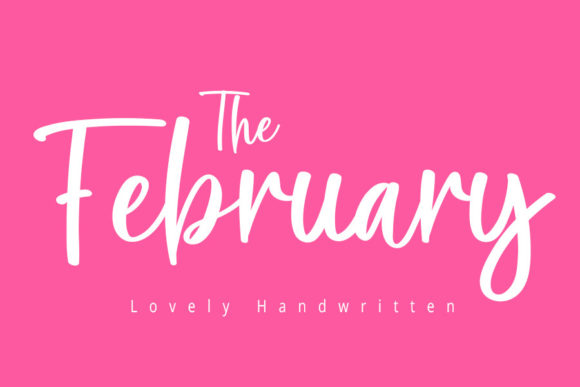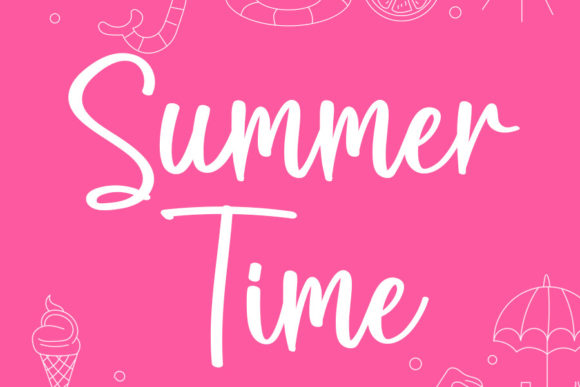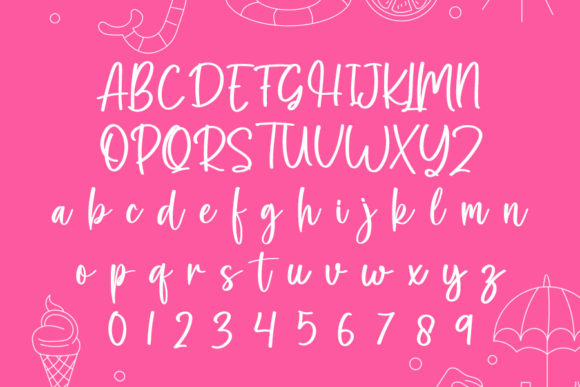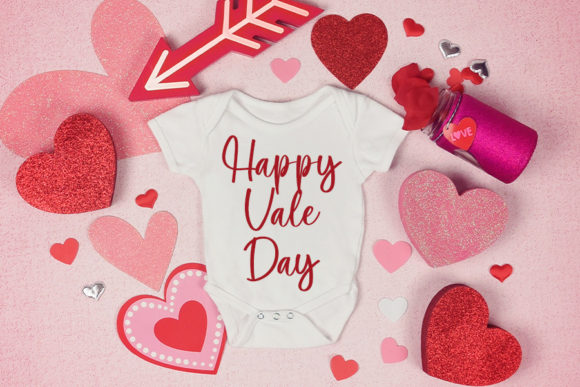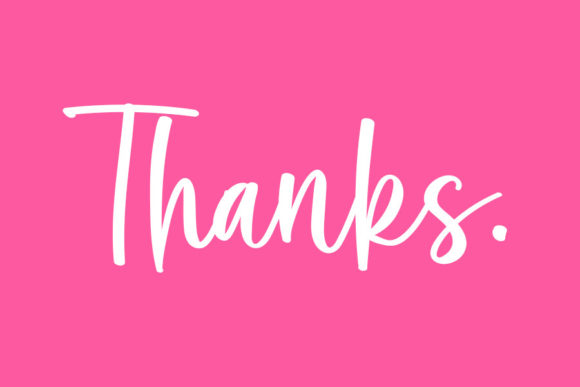
The February Font
About The February Font
The February is a sweet, all round and flexible handwritten font. Warm, romantic and jolly, this font will turn each of your project ideas into real works of art.